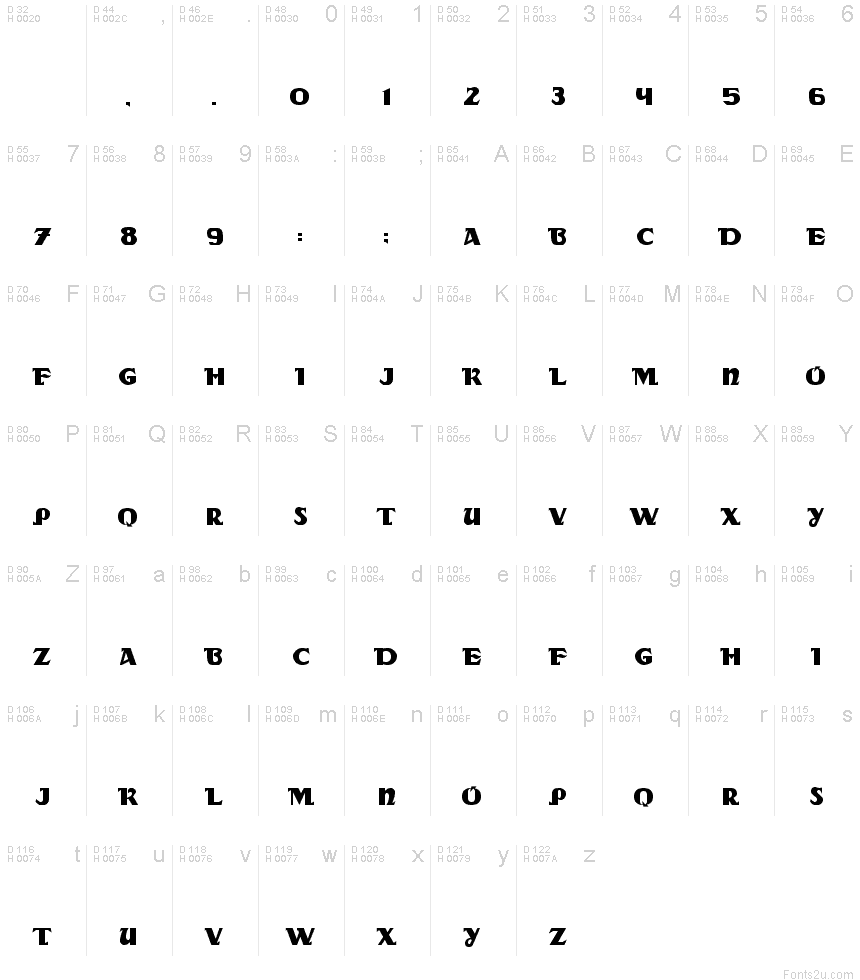
DS Rada by Dubina Nikolay of D-Studio is a free distorted display serif with a dense, theatrical silhouette. Broad curved forms collide with sharp wedges, abrupt cuts, and oversized slab-like feet. The uneven construction feels deliberately carved and slightly unruly, yet the repeated triangular details hold the letters together.
A music poster is its strongest setting, especially for experimental rock or underground club nights. The same jagged mass can turn a record sleeve, event merchandise, or a horror title card into something closer to an emblem than ordinary lettering. In editorial design, it suits forceful cover lines for culture magazines that favor confrontational, hand-cut typography.
Original decoration cyrillic fonts. DS Rada (ukrainian poster fonts - style)